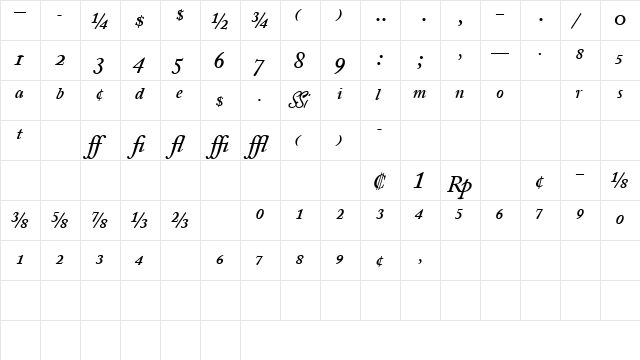
CaslonProSSK Bold Italic
Design Context for CaslonProSSK Typeface
CaslonProSSK is a composed and adaptable typeface that performs quietly and consistently across a wide range of design contexts. Its italic angle brings a sense of urgency and motion to the letterforms. Its bold stroke weight gives it real presence on the page.
Pro Tip: Use CaslonProSSK for emphasis, pull quotes, and subheadings where its slanted energy can add rhythm to the layout.